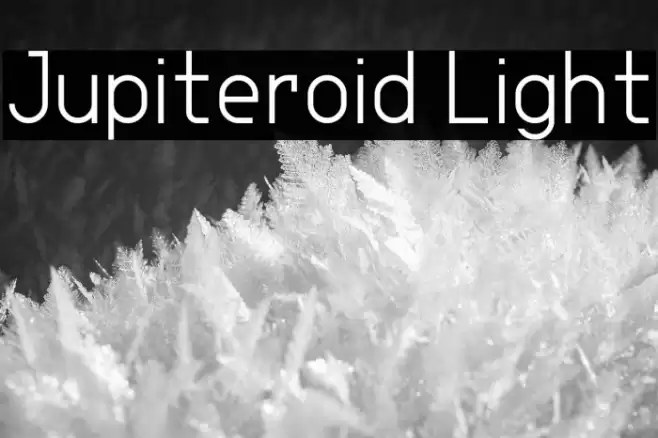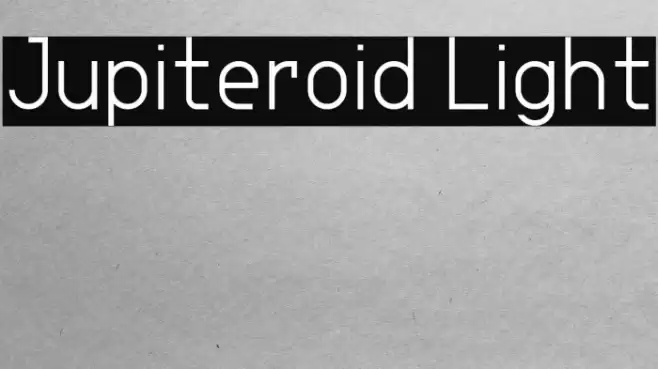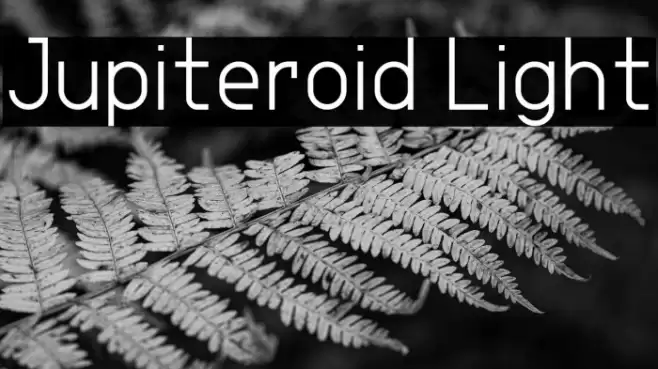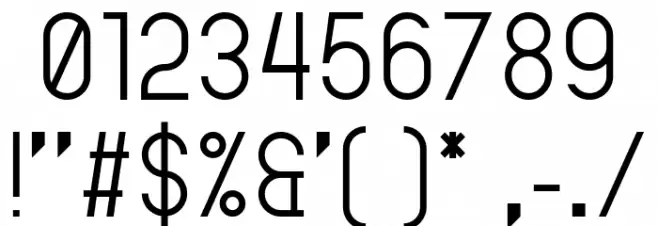
Jupiteroid Light Font
Jupiteroid Light Description
This font features a clean and modern sans-serif design with a geometric structure. The characters are evenly spaced, providing a balanced and harmonious appearance. The uppercase letters are bold and assertive, while the lowercase letters maintain a consistent flow with rounded edges. The numerals are clear and distinct, making them easily readable. Special characters are well-integrated, maintaining the overall aesthetic of the font. Its simplicity and clarity make it versatile for various design applications.
A modern, geometric sans-serif font with clean lines and balanced spacing from Basic fonts.
- Proposed Projects: Ideal for digital interfaces, branding, advertising, and editorial design where clarity and modernity are key.